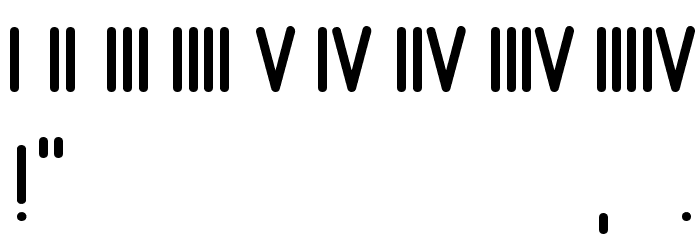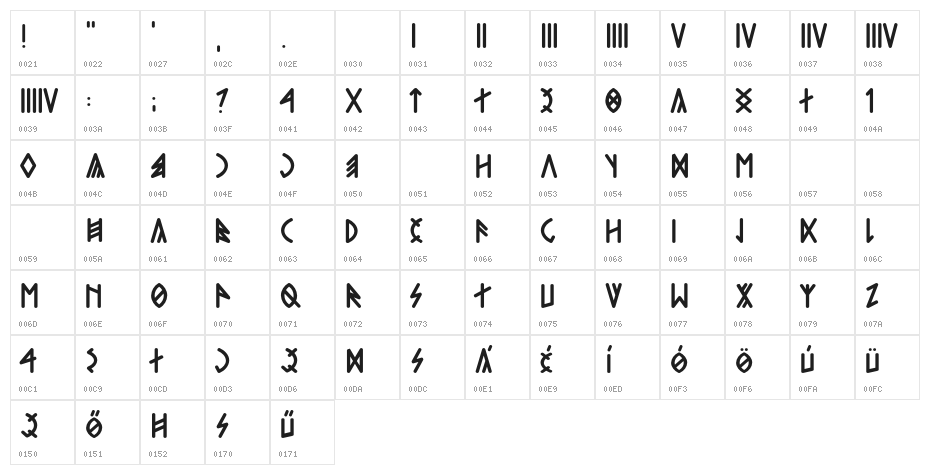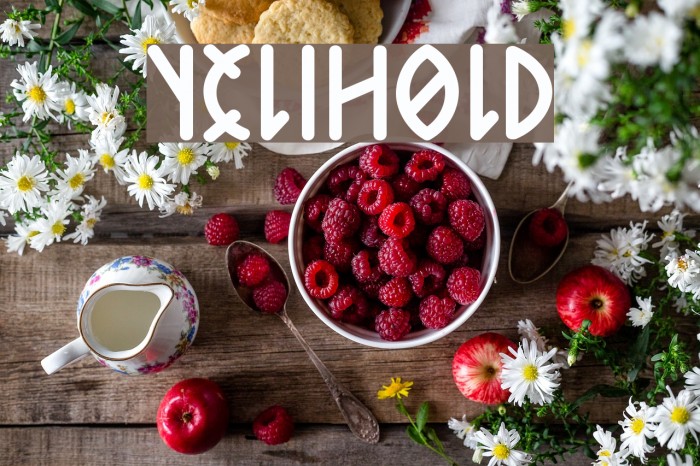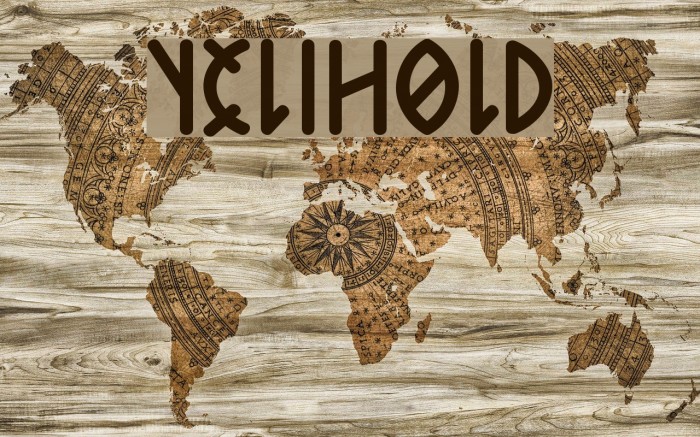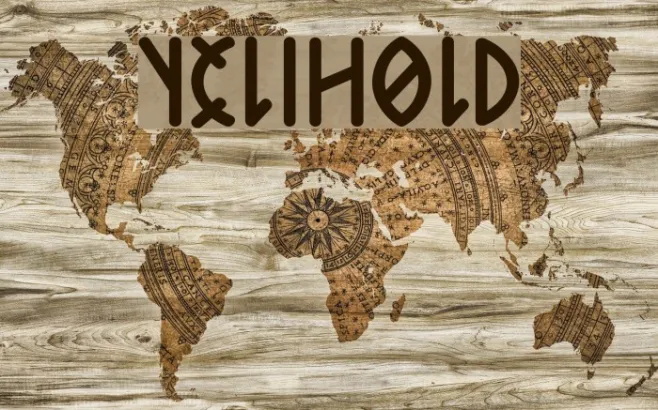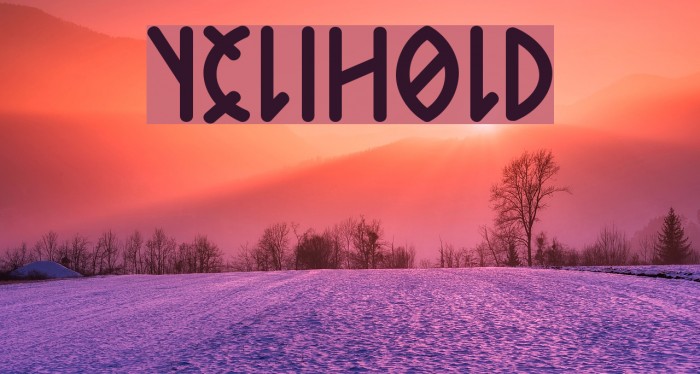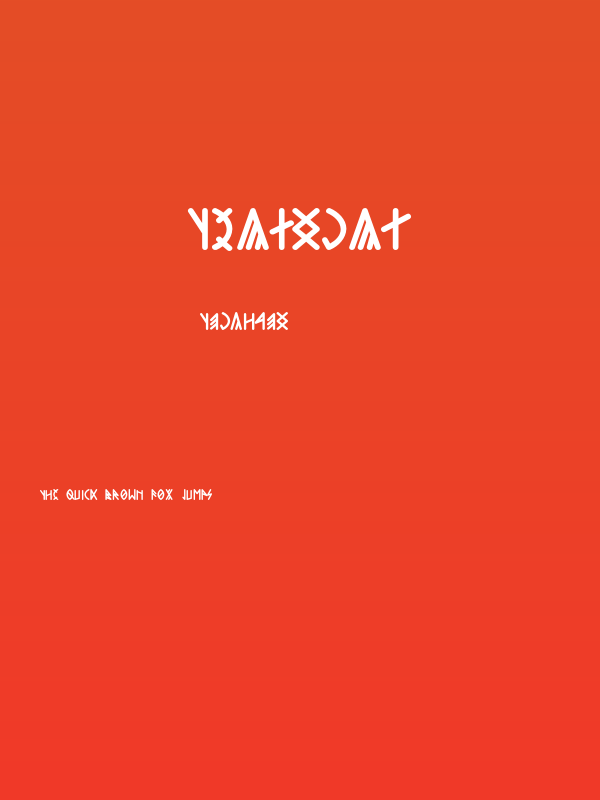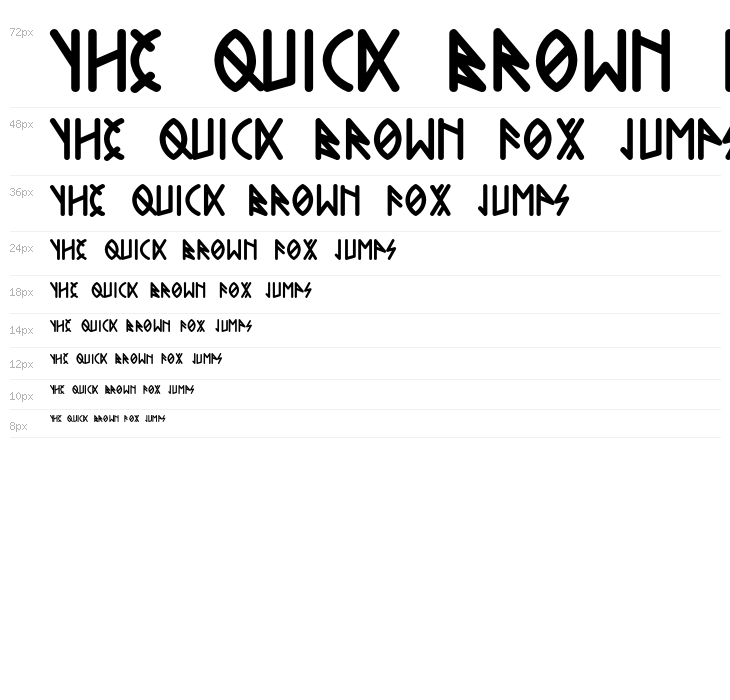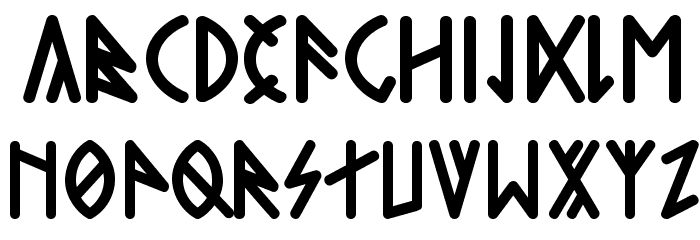
Telihold Font
Telihold Description
This font features a unique, geometric style reminiscent of ancient runes or symbols. The characters are bold and angular, with a consistent thickness throughout each letterform, giving it a uniform appearance. The uppercase letters are particularly striking, with sharp edges and distinct shapes that create a sense of mystery and intrigue. The numerals and special characters maintain this thematic consistency, enhancing the overall aesthetic. This font is ideal for projects that require a touch of the mystical or historical, such as fantasy-themed designs or cultural exhibitions.
Overall StyleMystical, Historical, Decorative
Use CaseLogos, Posters, Themed Events
Proposed ProjectsFantasy book covers, historical exhibitions, themed event posters, game design.